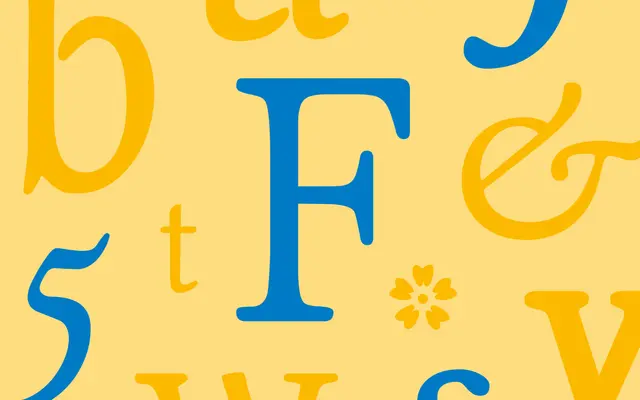
Magpie
Dalton Maag · Vincent Connare
Magpie specimen from Dalton Maag
A warm, cursive text serif by Vincent Connare for long-form reading, offered in four classic book styles.
A text serif by Vincent Connare drawn for long-form reading, with a warm voice and cursive italics. The four-style family pairs Regular and Bold with their italics, supported by small caps, discretionary ligatures, oldstyle and lining numerals, and alternates for q, R, V and p. Best at body sizes in books, journals and editorial layouts where you want a literary tone with a modern view of history.
Dalton Maag describe Magpie as a faithful and elegant serif offering a modern view of history, warm with a cursive flow and built specifically for long-form text setting such as books.